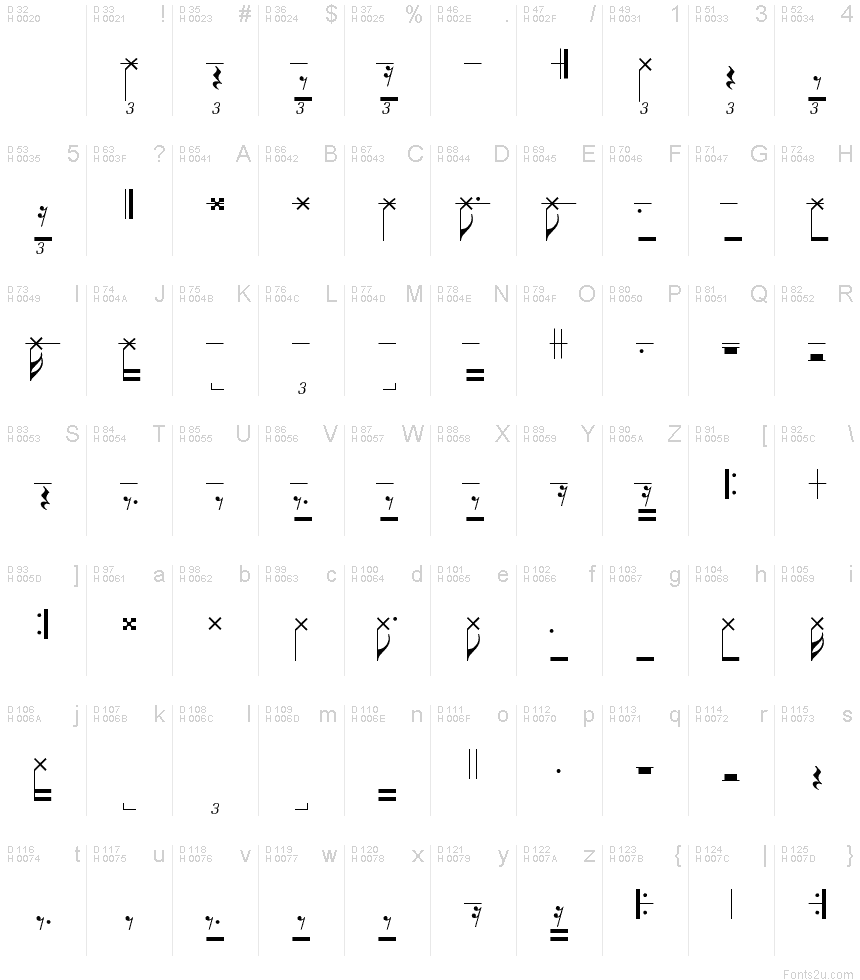
Bongos2
Bongos and Bongos 2 differ in the vertical placement of symbols relative to the (real or imaginary) horizontal line that connects X-heads.
This font may be used like any True Type font in a word processor. It may be useful for illustrating a line of X-head musical notation, of the kind sometimes used by drummers. It may also be useful for showing the rhythm of spoken words.
Lowercase characters do not contain a horizontal line linking them. Uppercase characters are linked by a horizontal line.
Use the font with a character map that magnifies the symbols, so you can see what you are doing. Sometimes, part of a symbol (such as beams or triplets notation) may not be readily visible when inspecting a character.
The font includes whole through sixteenth notes and rests. Dotted notes are available. Eighth and sixteenth notes may be beamed, including rests and dots. There is a percussion clef, measure bar, repeats, and system close.
Triplets may also be constructed.
There is not much logic between keyboard strokes and musical symbols. Use a character map to hunt for what you need.